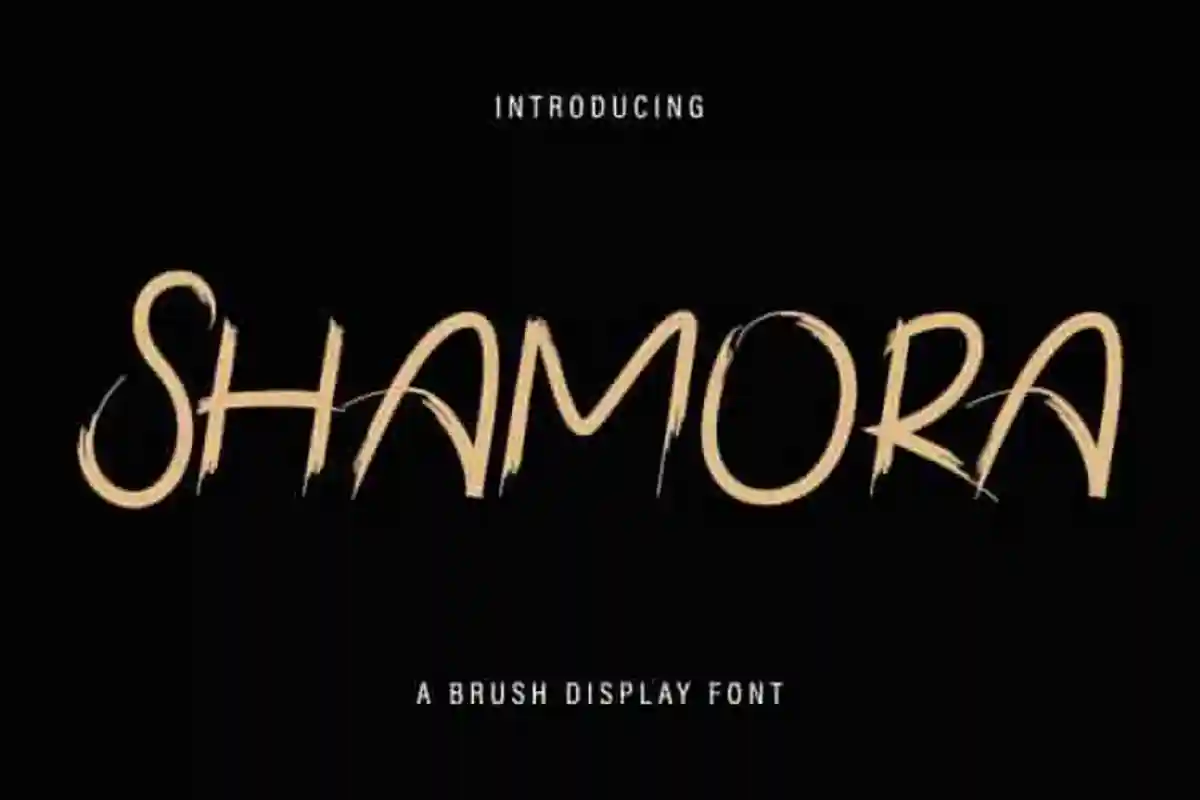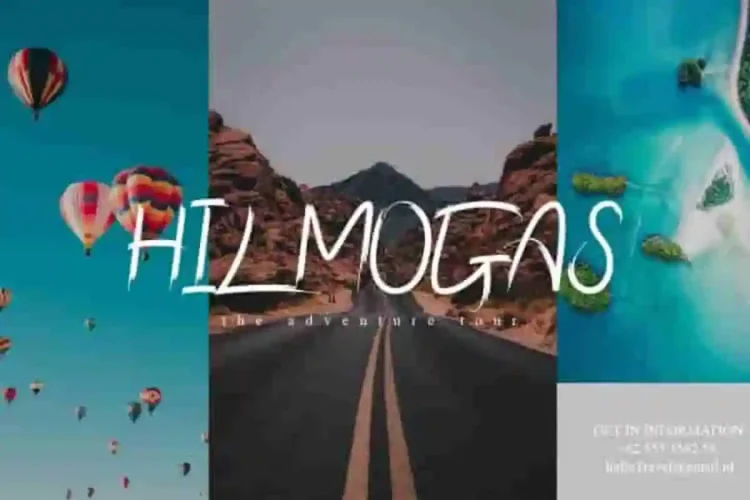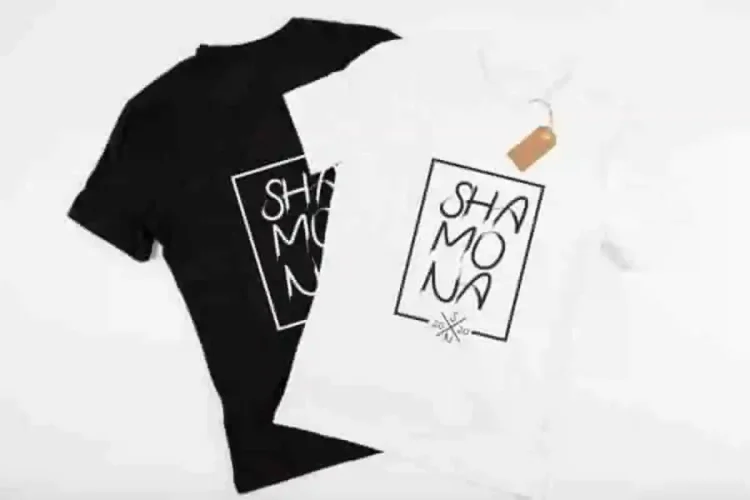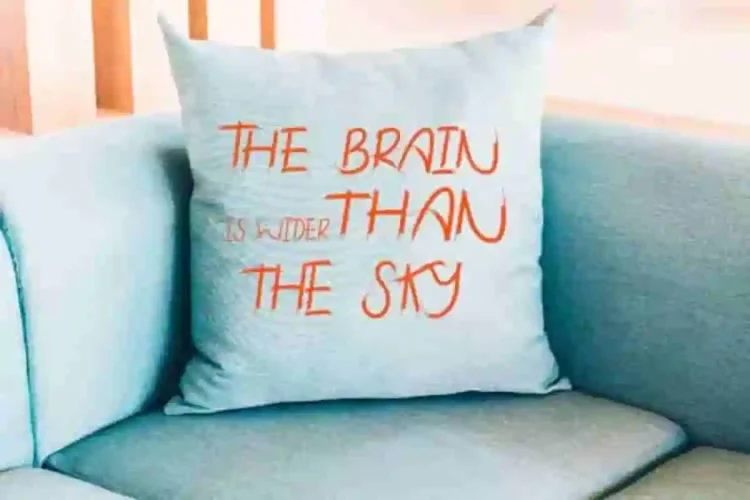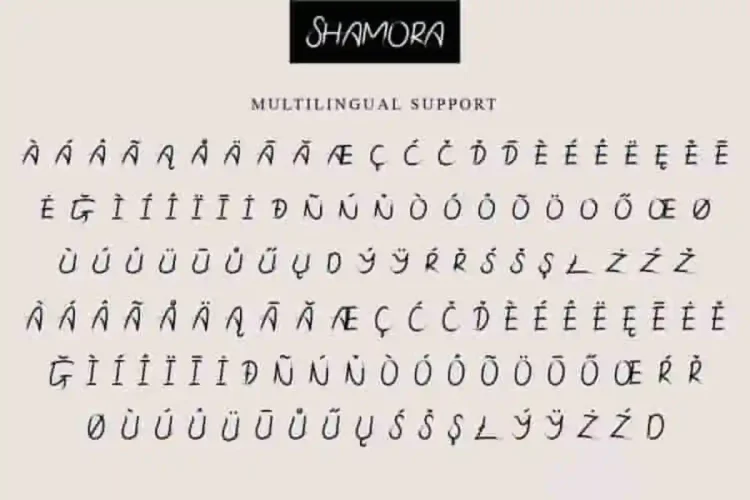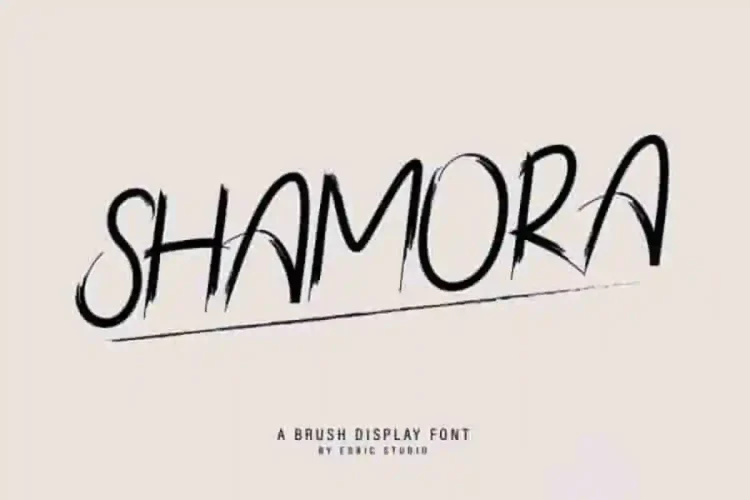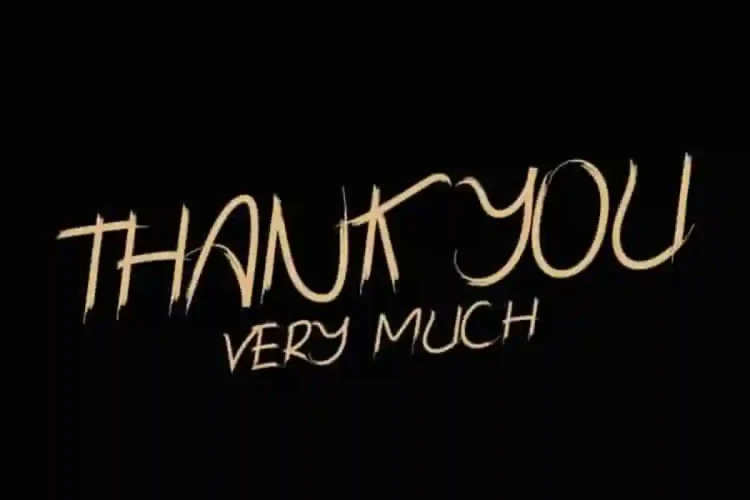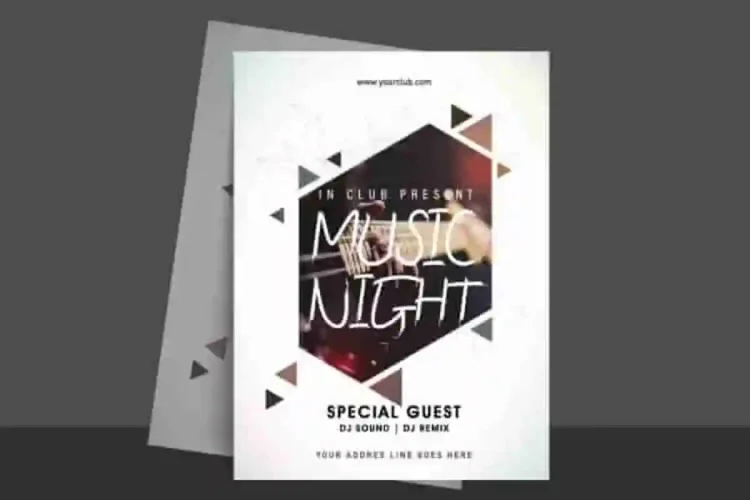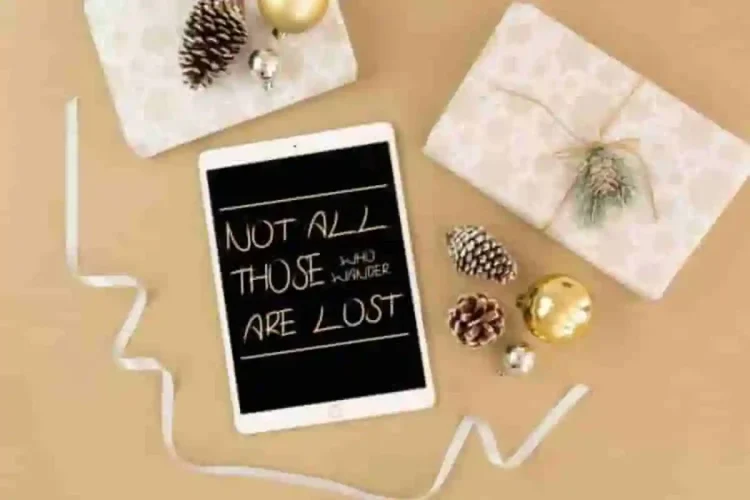
Shamora Handwritting Brush Font
Introducing our latest font : Shamora Brush Font
This is a brush display font, handcrafted on our Studio in Bandung and Garut, Indonesia. The typeface artists/designers of this beautiful font is Yasri and Suci.
Shamora Brush Font is an unique Script decorative typeface with brush style. This font has an exclusive characters set, perfectly managed with well spaced and kerning. The theme style of this font will elegant,  vintage, stylish, sophisticated and classic brush calligraphic style. This font is like no other.
Shamora Brush Font will be awesome (with extended license) for any projects including : branding, logo, stationery, business card, signage, flyer, brochure etc. Almost all industries will be match for this typeface: wedding, events, real estate, architect, law firm, florist, gardening, makeup artist, travel, hotel, musician etc